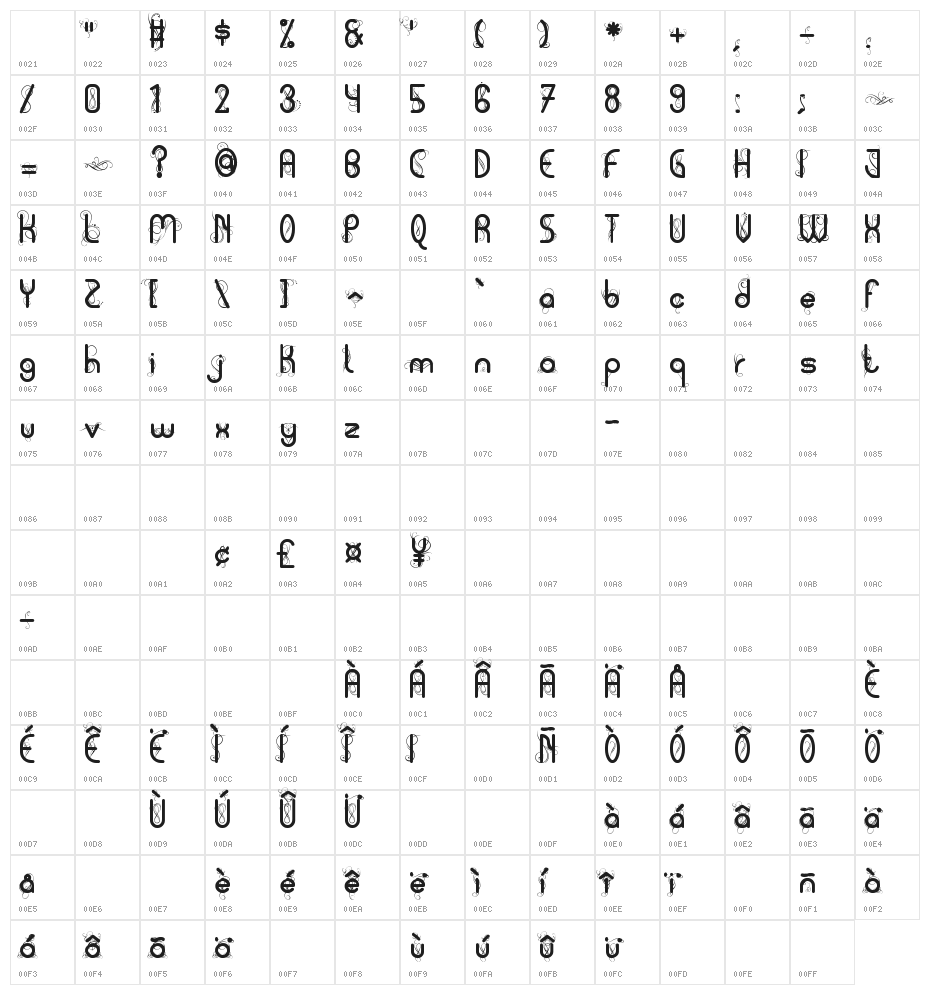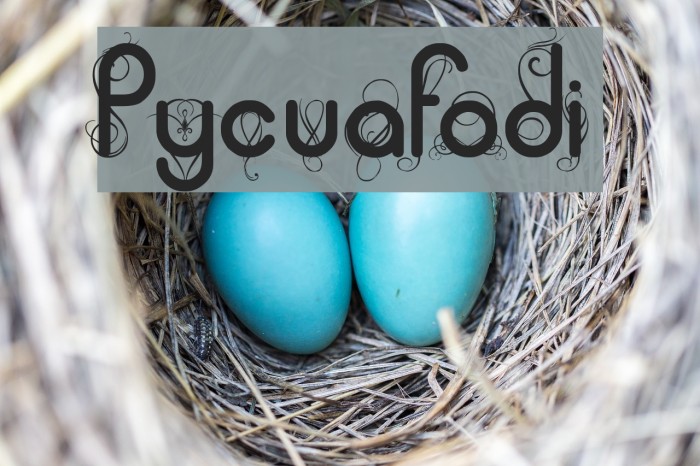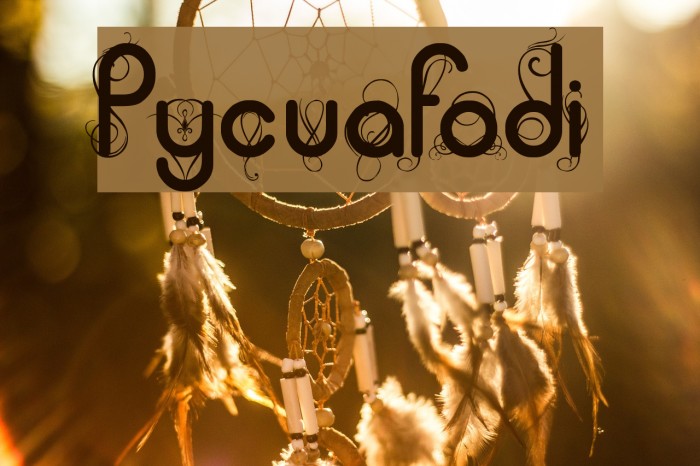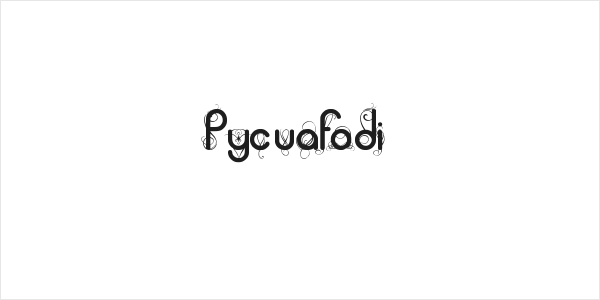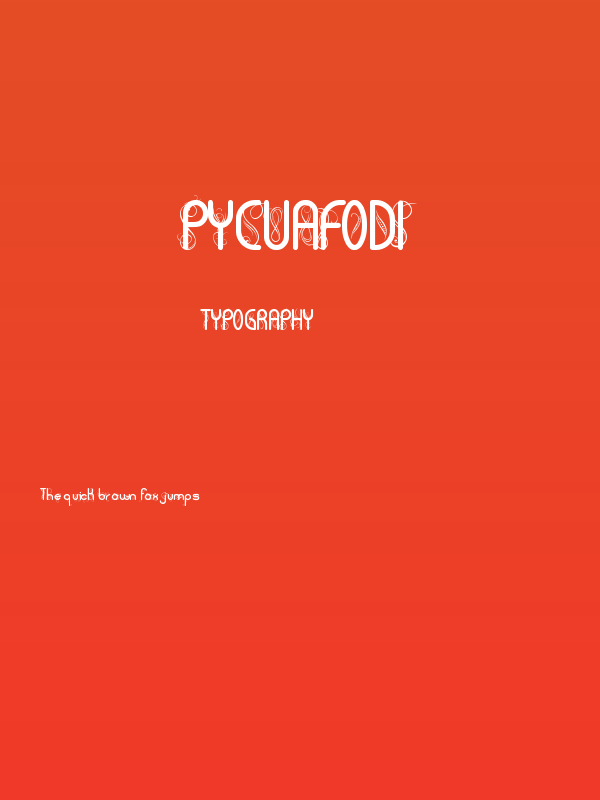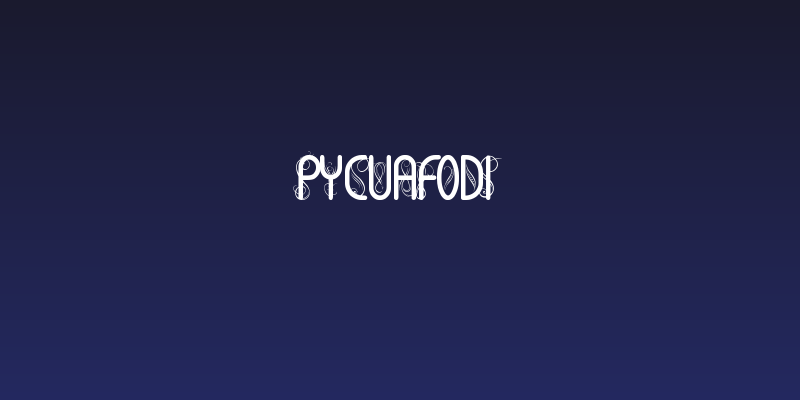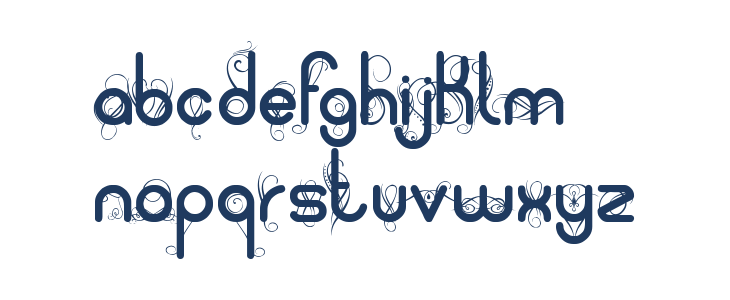
Pycuafodi Font
Pycuafodi Description
This font is a decorative and artistic typeface with intricate swirls and embellishments integrated into each character. The uppercase letters are bold and feature elaborate curls that extend from the main strokes, creating an ornate appearance. The lowercase letters maintain a similar style, with a slightly more subdued embellishment, allowing for readability while still retaining the decorative flair. Numbers and special characters follow the same ornate design, making them consistent with the overall aesthetic. The font's unique style makes it suitable for creative and artistic projects where a touch of elegance and sophistication is desired.
| Use Case | Headlines, Logos, Invitations |
| Proposed Projects | Ideal for wedding invitations, artistic posters, branding for luxury products, and decorative headlines. |